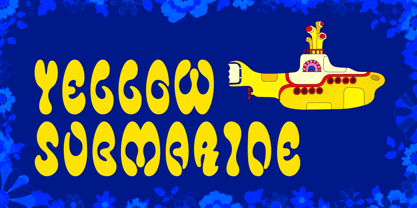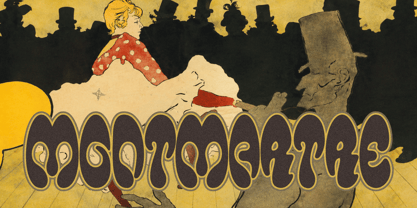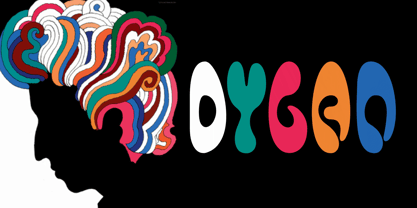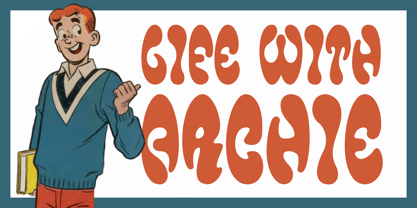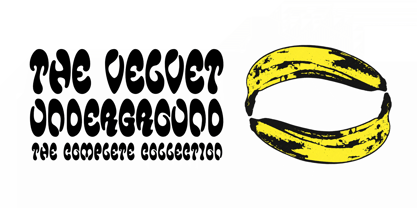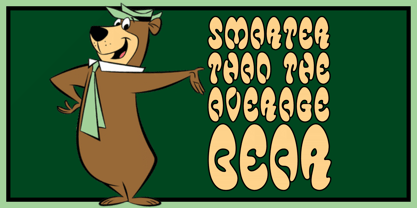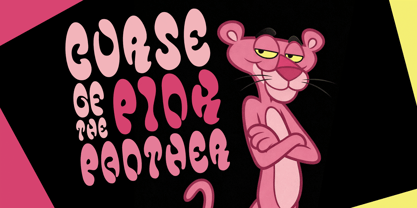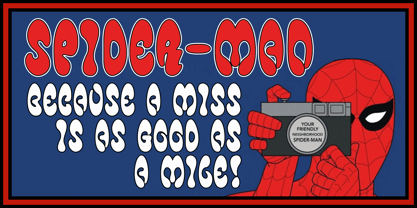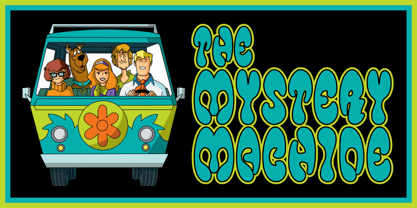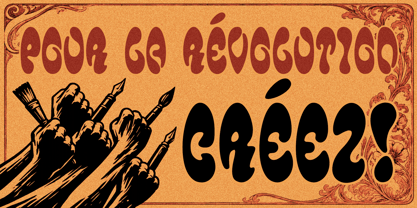
Psikey
by MKGD
The Psikey Font Family was designed by Michael Kovacevich and published by MKGD. Psikey contains 1 styles. More about this family
When I first started designing Psikey I had intended it to be an Art Nouveau style of typeface. However, as things progressed, I found myself going on a different tangent. It started to more closely resemble psychedelic fonts from the nineteen-sixties. Then, once again, it seemed to morph into a font that might be more readly seen on cartoon shows or on comic book covers. In the end, I like to think that since all three of these styles occupied my mind at different times during the construction of this font, that it may have maintained characteristics of each of them.